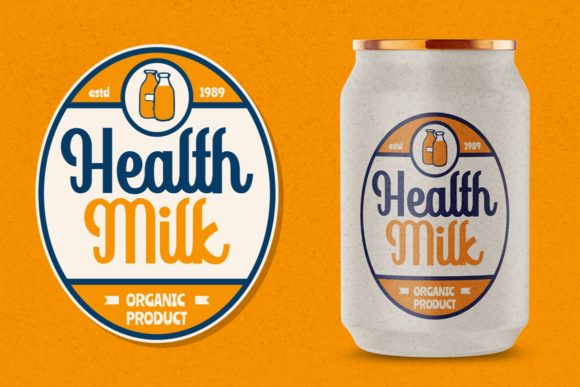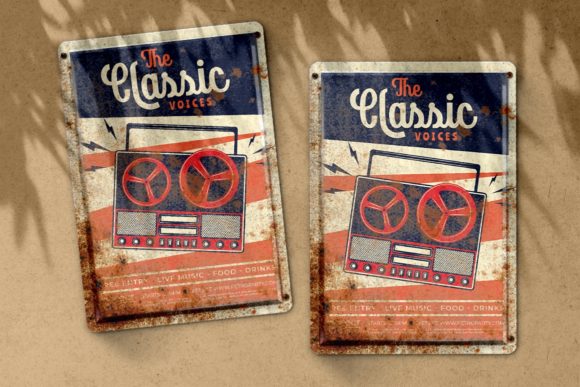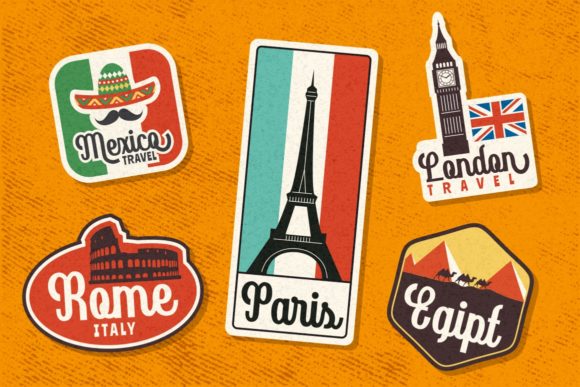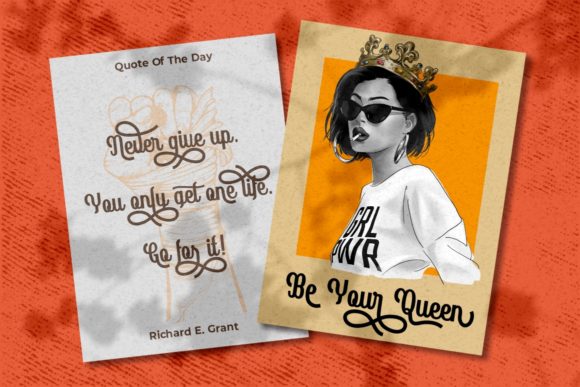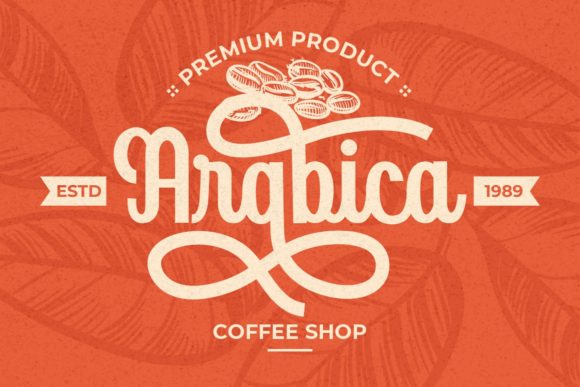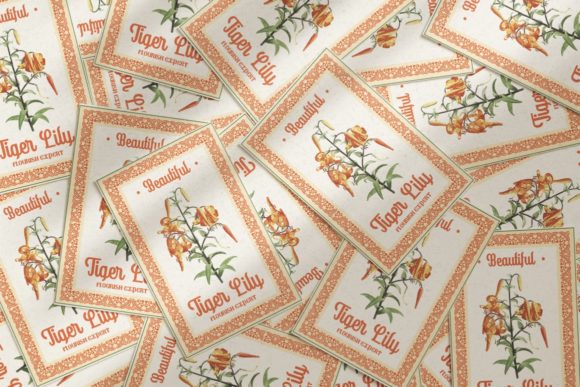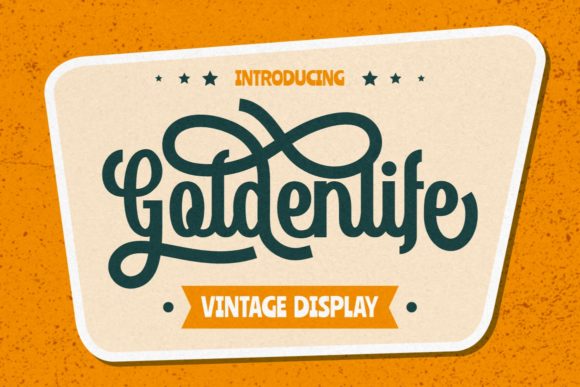
Introducing Goldenlife Font: The Ultimate Retro Display Font
Are you a designer or crafter looking to add a touch of nostalgia to your designs? Look no further than the Goldenlife Font! This playfully nostalgic display font is designed to deliver an incredible vintage aesthetic that’s sure to transport your audience back in time.
The Retro Charm of Goldenlife Font
Goldenlife Font is the perfect addition to any design project that requires a retro touch. With its unique blend of classic and modern elements, this font is sure to evoke a sense of nostalgia and playfulness. Whether you’re working on a logo, branding project, or social media graphics, Goldenlife Font is the perfect choice.
What Makes Goldenlife Font So Special?
So, what sets Goldenlife Font apart from other display fonts on the market? Here are just a few features that make it a standout:
• Unique Vintage Aesthetic: Goldenlife Font boasts a distinctive vintage look that’s sure to turn heads. Its classic lines and curves evoke a sense of nostalgia and sophistication.
• Playful and Fun: Despite its vintage vibe, Goldenlife Font is surprisingly playful and fun. It’s the perfect choice for designs that require a lighthearted touch.
• Highly Versatile: Goldenlife Font is incredibly versatile, making it suitable for a wide range of design projects. Use it for logos, branding, social media graphics, and more!
• Easily Readable: Despite its ornate design, Goldenlife Font is surprisingly easy to read. This makes it perfect for use in headlines, titles, and other applications where readability is key.
How to Use Goldenlife Font in Your Designs
Ready to add a touch of retro charm to your designs? Here are a few ways you can use Goldenlife Font:
• Logos and Branding: Use Goldenlife Font to create a unique and memorable logo that’s sure to stand out.
• Social Media Graphics: Add a touch of nostalgia to your social media graphics with Goldenlife Font. It’s perfect for creating eye-catching headlines and titles.
• Posters and Flyers: Goldenlife Font is a great choice for posters and flyers. Use it to create bold and eye-catching headlines that grab attention.
• Packaging Design: Add a touch of vintage charm to your packaging design with Goldenlife Font. It’s perfect for creating labels, tags, and other packaging materials.
Tips for Getting the Most Out of Goldenlife Font
Here are a few tips for getting the most out of Goldenlife Font:
• Experiment with Colors: Goldenlife Font looks great in a variety of colors. Experiment with different color schemes to find the one that works best for your design.
• Play with Texture: Add some texture to your design by combining Goldenlife Font with different textures and patterns.
• Mix and Match: Don’t be afraid to mix and match Goldenlife Font with other fonts. This can help create a unique and eye-catching design.
In conclusion, Goldenlife Font is a versatile and stylish display font that’s perfect for adding a touch of retro charm to your designs. With its unique vintage aesthetic, playful vibe, and high readability, it’s the perfect choice for designers and crafters looking to create eye-catching and memorable designs. So why wait? Download Goldenlife Font today and start creating your own retro-inspired masterpieces!